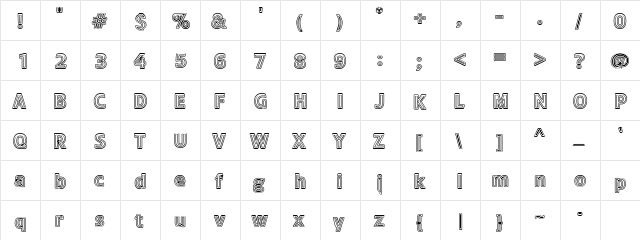
JustDoodlingOne Regular
Design Context for JustDoodlingOne Typeface
JustDoodlingOne is a composed and adaptable typeface that performs quietly and consistently across a wide range of design contexts.